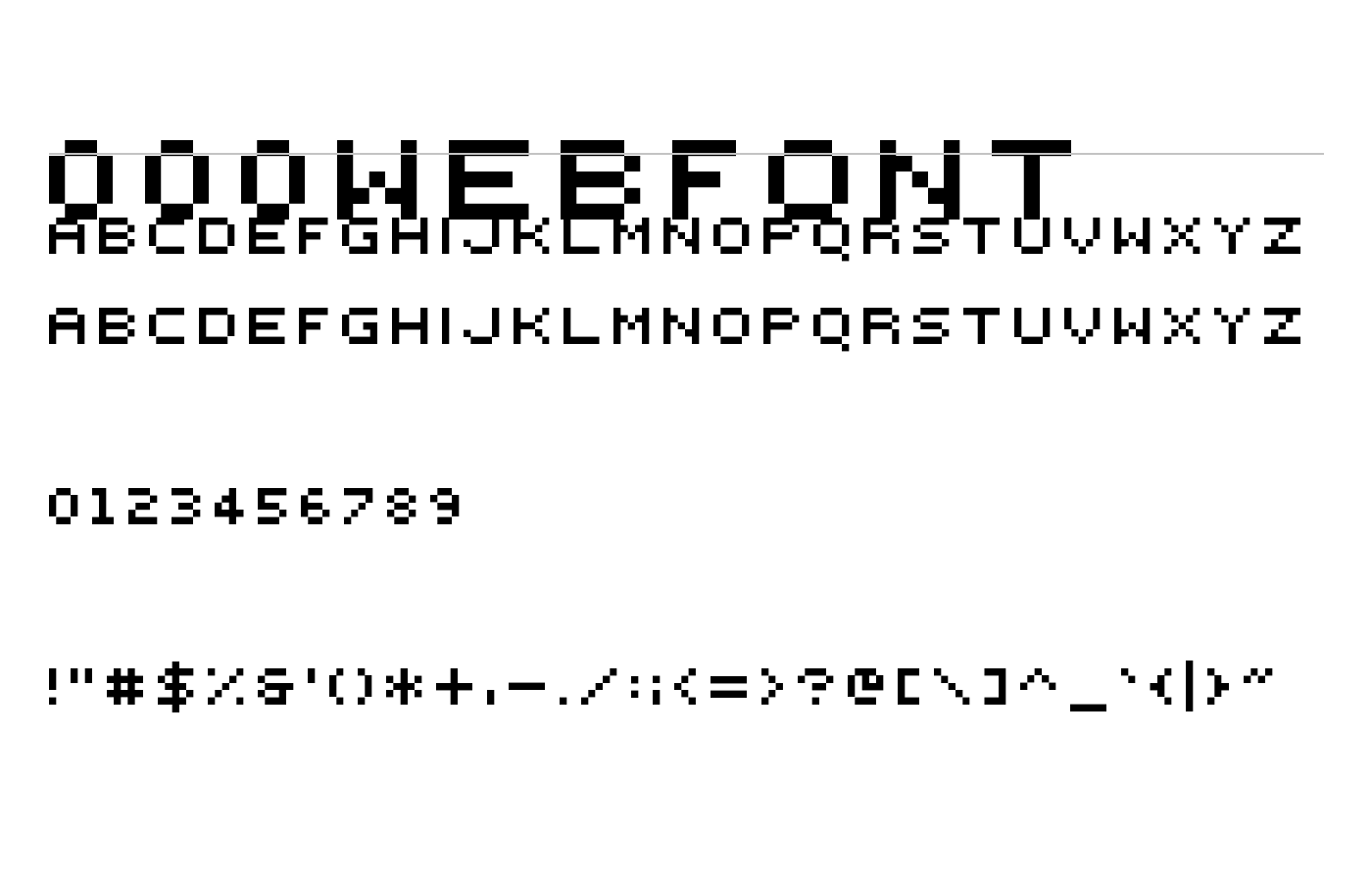
000webfont is a pixelated, monospaced sans serif font with a retro digital style reminiscent of early computer or video game text. Its blocky, square letterforms and consistent stroke weight give it a technical and utilitarian feel, making it well suited for digital displays, coding interfaces, or designs seeking a nostalgic or tech-inspired vibe. This font works best in headlines, logos, or any context where a bold, pixel-art aesthetic is desired.
000webfont